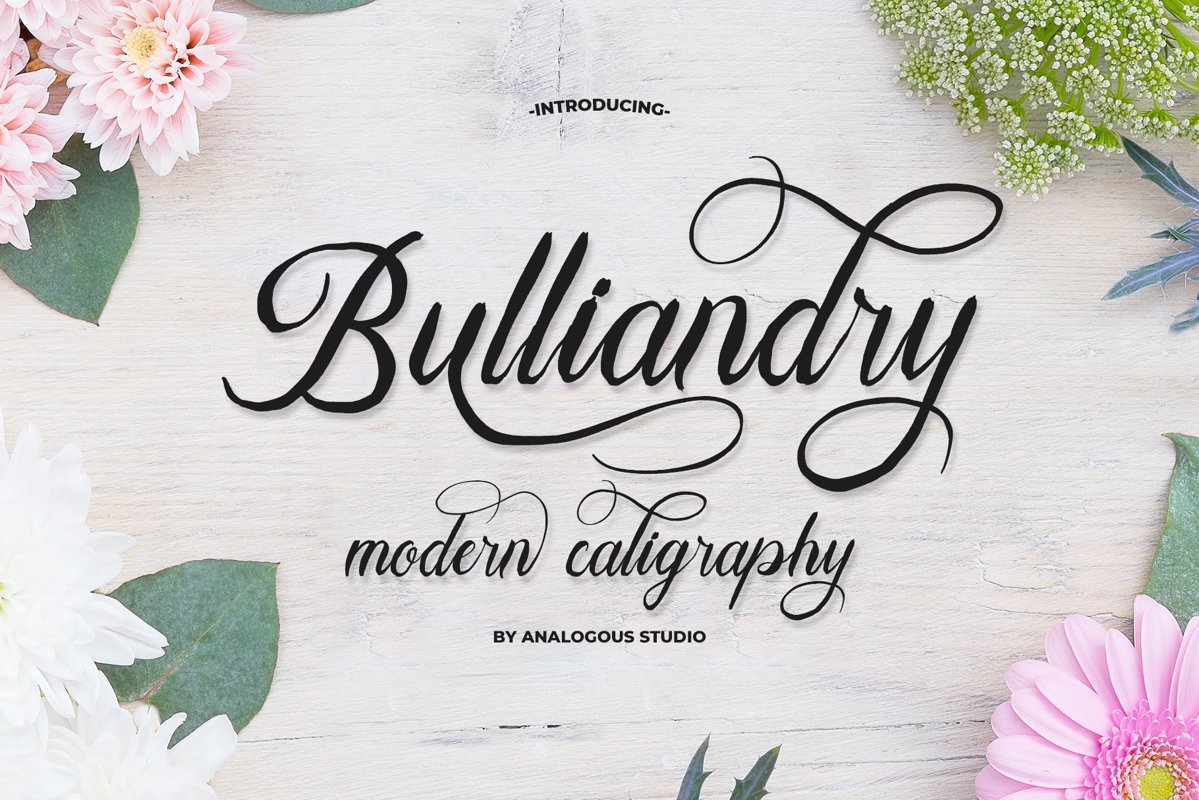
Bulliandry | Modern Calligraphy
Bulliandry Calligraphy
Introducing the elegant new Bulliandry Calligraphy Font! For those of you who are needing a touch of elegance and modernity for your designs, this font was created for you!Bulliandry is suitable for all your design project needs such as: logo design, branding, covers, posters, magazines, wedding invitations, greeting cards, quotes and more.
Bulliandry come with more Alternative and more Ligature. The alternative characters were divided into several Open Type features such as Stylistic Sets, Stylistic Alternates and Ligature. The Open Type features can be accessed by using Open Type savvy programs such as Adobe Illustrator, Adobe InDesign, Adobe Photoshop Corel Draw X version, And Microsoft Word. And this Font has given PUA unicode (specially coded fonts). so that all the alternate characters can easily be accessed in full by a craftsman or designer.